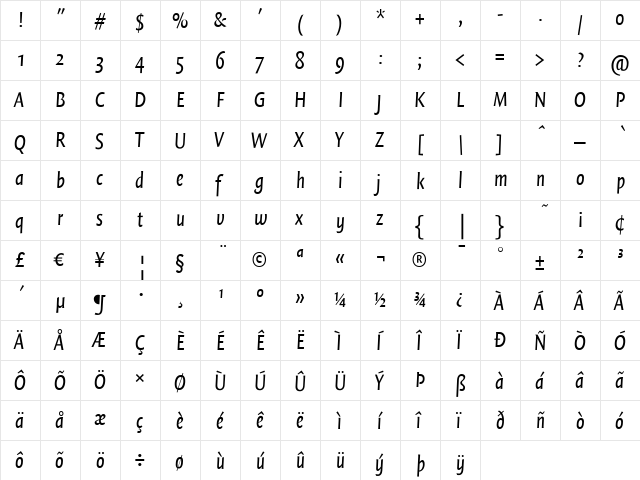
QuadraatSansCon Italic
Design Context for QuadraatSansCon Typeface
QuadraatSansCon is a composed and adaptable typeface that performs quietly and consistently across a wide range of design contexts. The dynamic lean of this cut emphasises speed and emphasis in any layout.
Pro Tip: Try QuadraatSansCon for annotation and caption copy alongside an upright companion — the contrast in angle creates a dynamic but ordered typographic system.